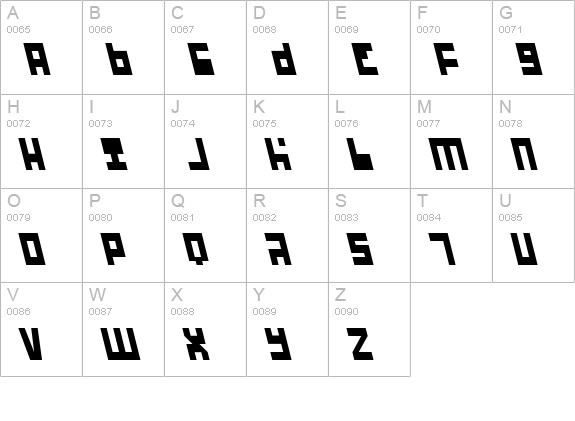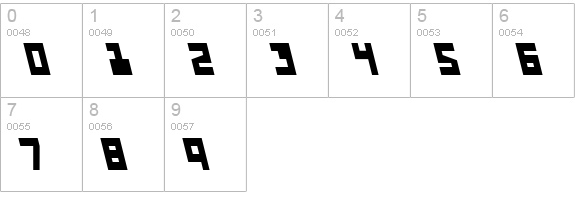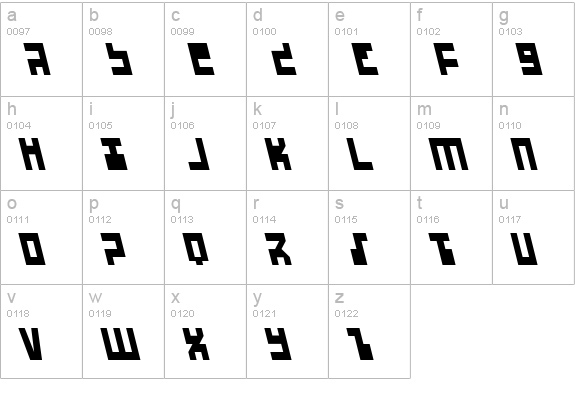
UFO Hunter Leftalic font is a bold and futuristic typeface that captures the essence of extraterrestrial exploration. Its sleek and dynamic design is perfect for conveying a sense of mystery and adventure. The slanted italic style adds a touch of movement and energy to your text, making it stand out in any project. This unique font is ideal for sci-fi themed designs, space-related content, or any project where you want to add a touch of otherworldly charm. Whether you're creating posters, logos, or digital artwork, UFO Hunter Leftalic font will bring a sense of intrigue and excitement to your work. Best of all, UFO Hunter Leftalic font is available for free download at FontsMarket.com. So go ahead and unleash your creativity with this captivating typeface today!